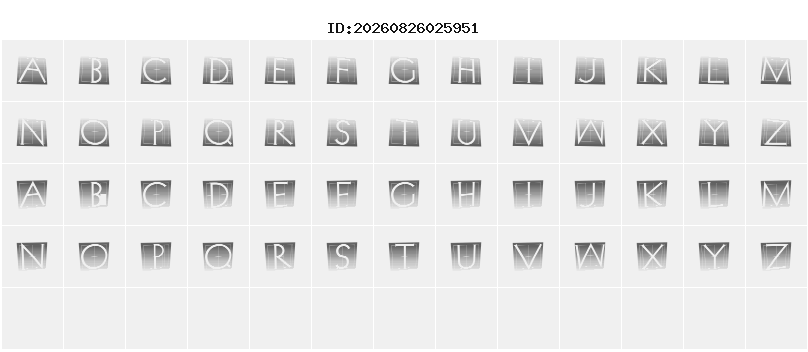
• Font Name: XperimentypoStripes
About XperimentypoStripes.ttf
XperimentypoStripes.ttf is a modern, elegant sans-serif font designed for ultimate readability and visual harmony. Perfect for branding, headlines, web design, and print materials.